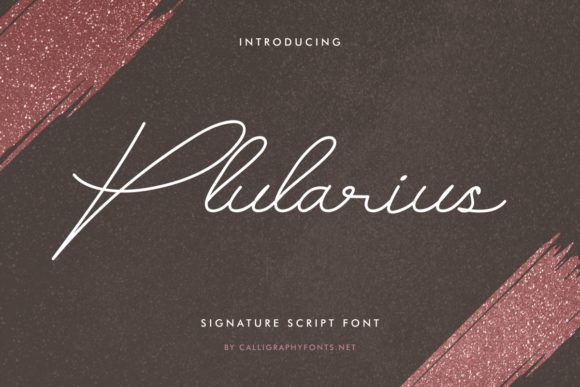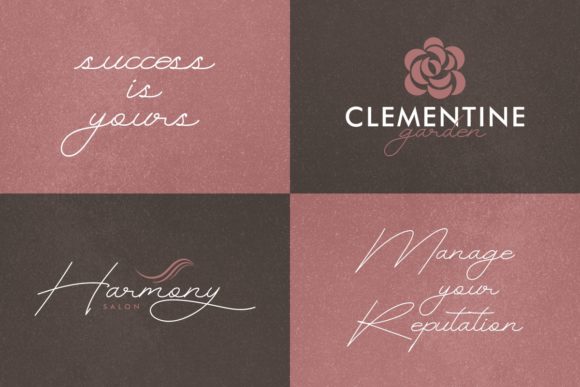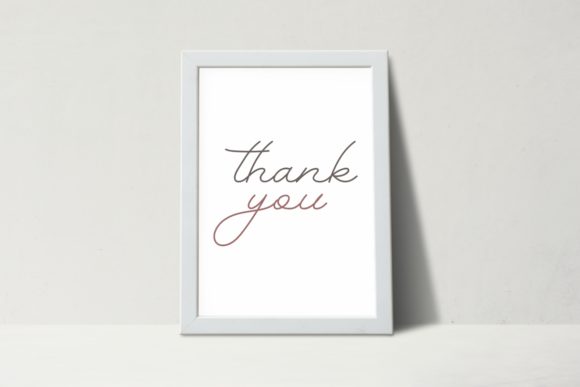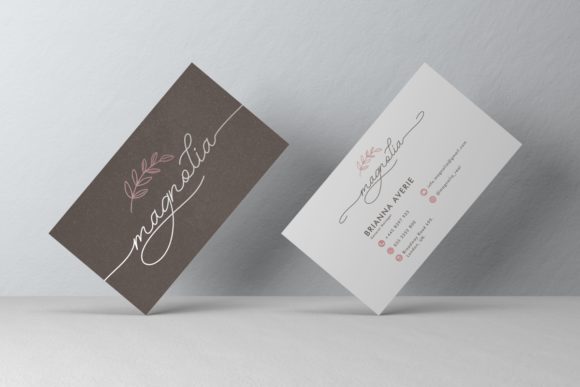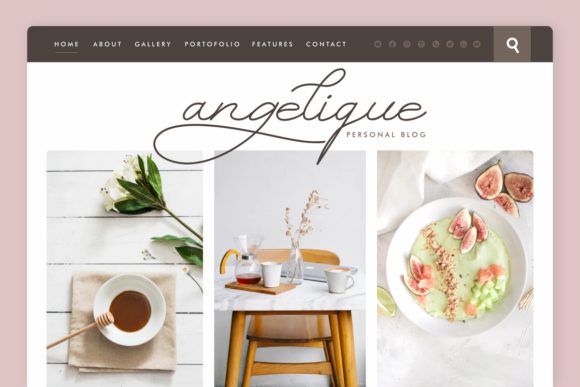
About Plularius Font
Plularius is a delicate, elegant and flowing handwritten font. It has beautiful and well balanced characters and as a result, it matches a wide pool of designs. Add it to your most creative ideas and notice how it makes them come alive!